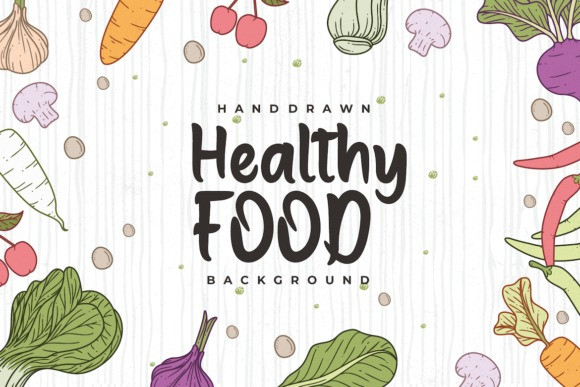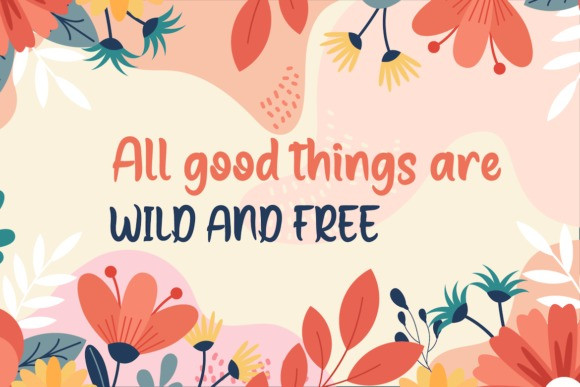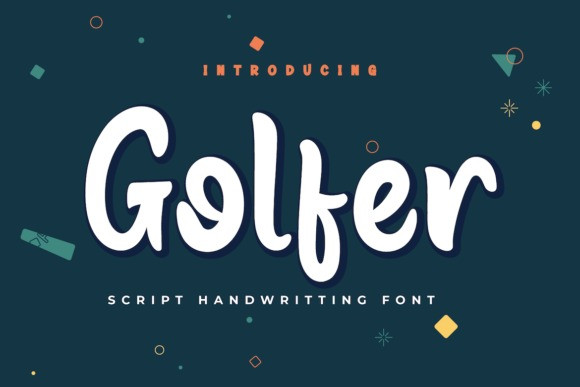
Golfer Brush Font
Golfer is a cool and stylish paint brushed handwritten font. Whether you’re using it for crafting, digital designing, presentations or greeting cards making, it’s perfect!